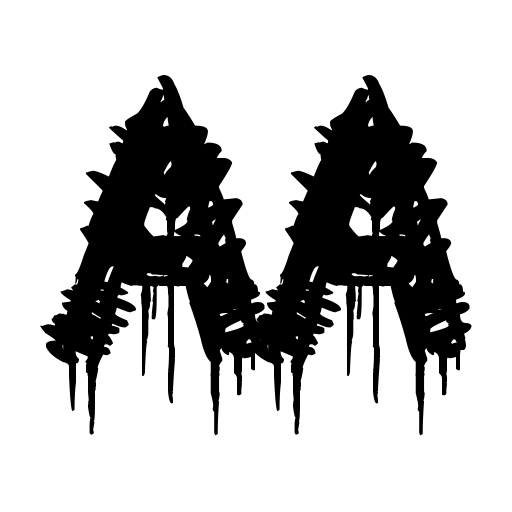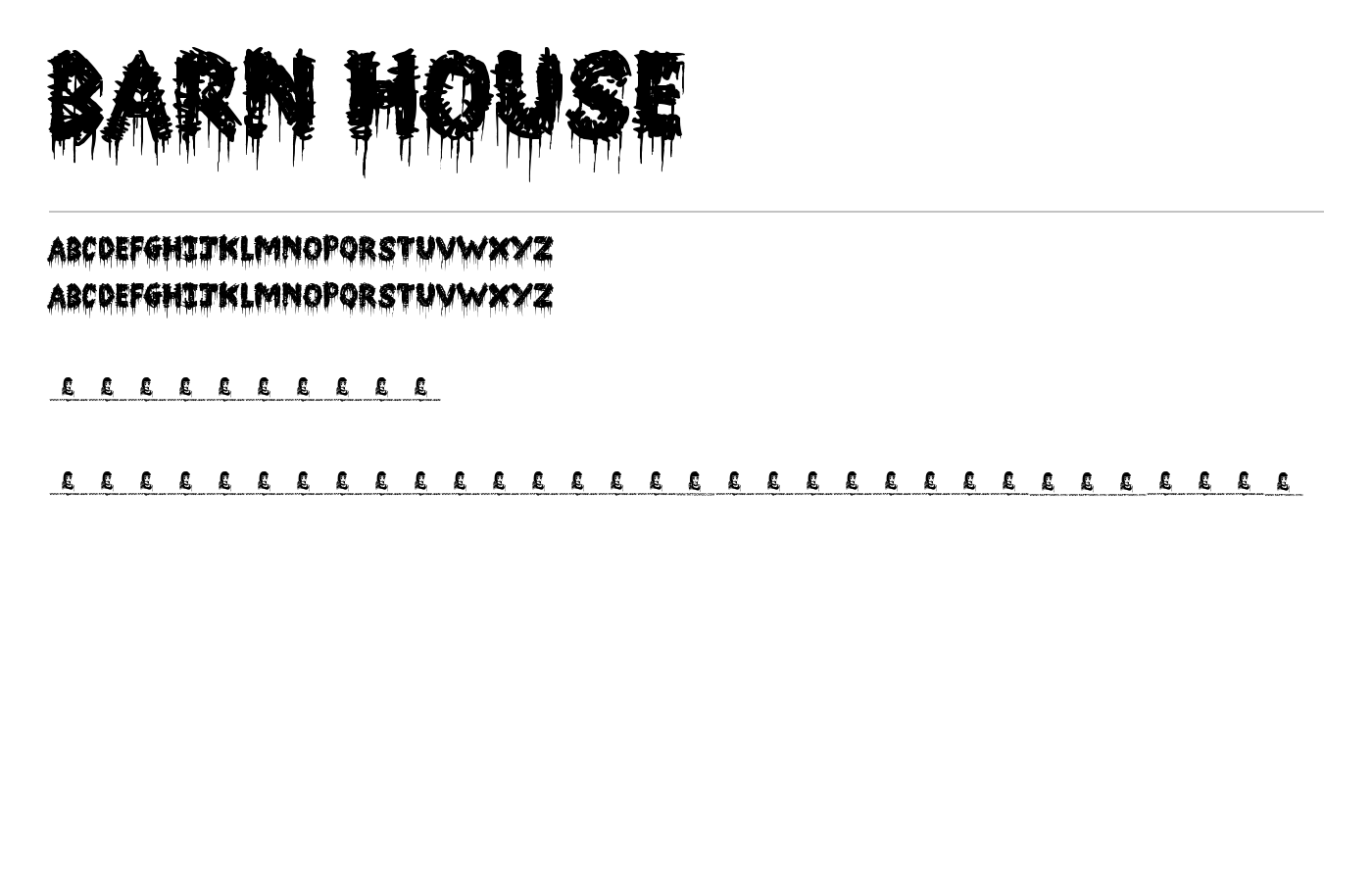
Barn House is a bold, decorative sans serif font characterized by its jagged, dripping edges that evoke a spooky, horror-inspired vibe. Its heavy weight and irregular outlines create a striking, intense look ideal for Halloween-themed designs, posters, or any project seeking a dramatic and eerie atmosphere. This font works best in headlines and display sizes where its unique texture can grab attention and set a bold, playful yet creepy tone.
Barn House Font
About Barn House Font
| Font family | Barn House Font |
| Designer | Jonathan Stephen Harris |